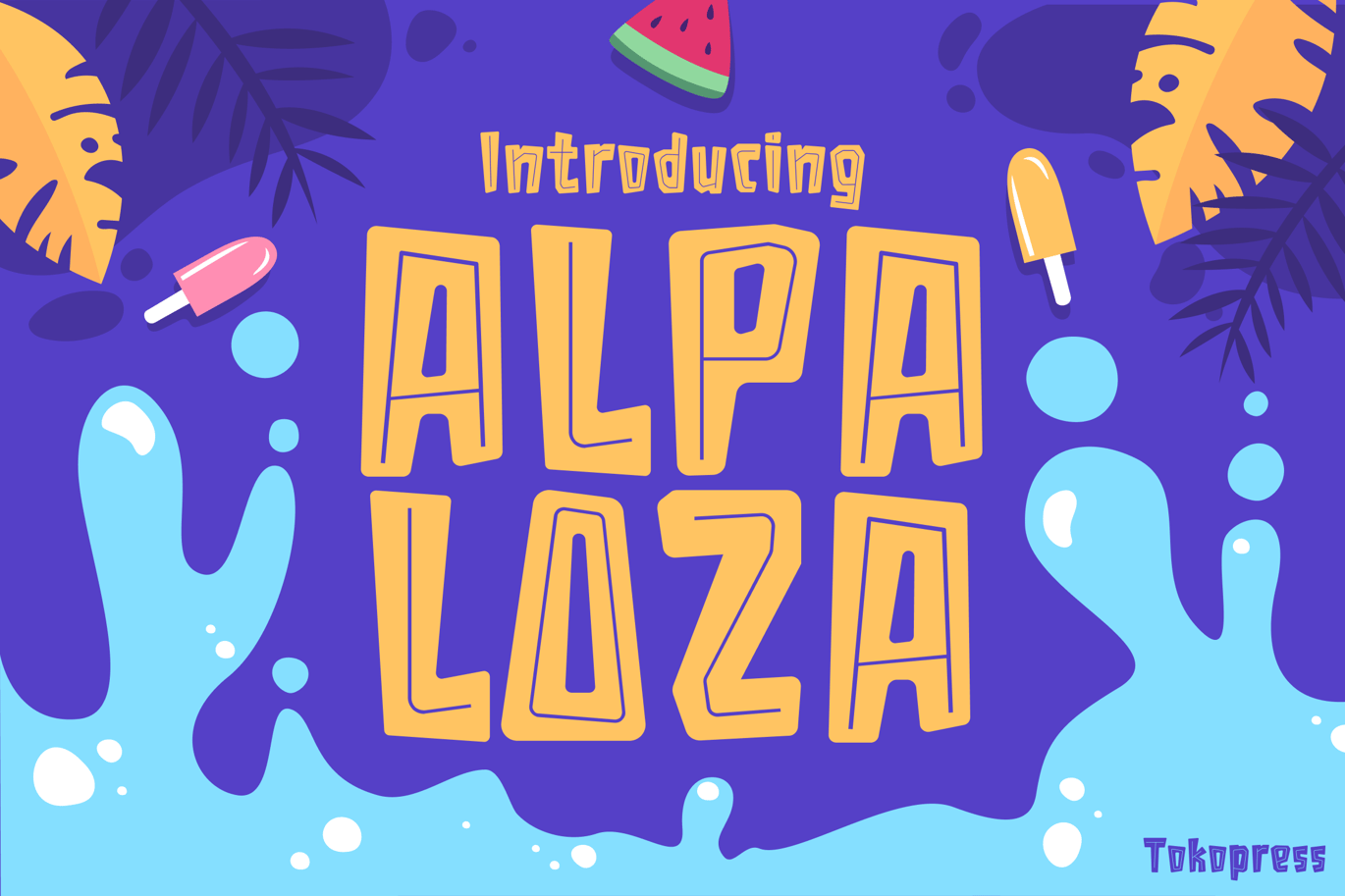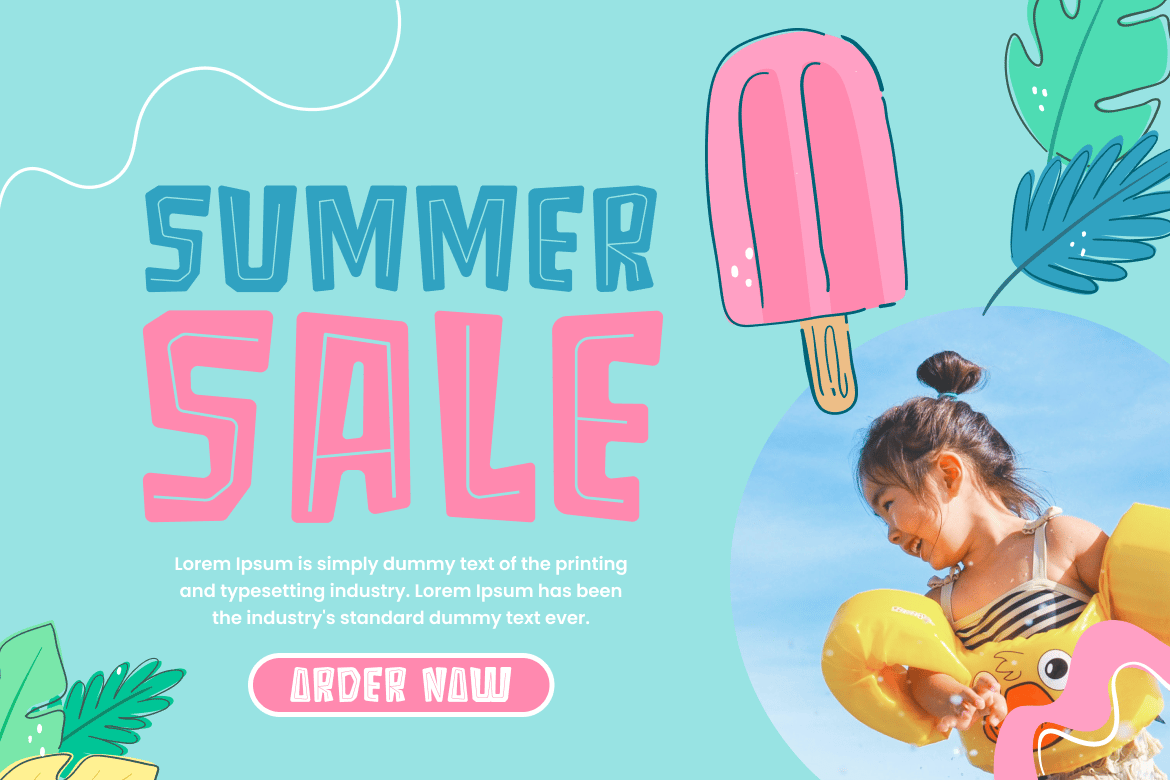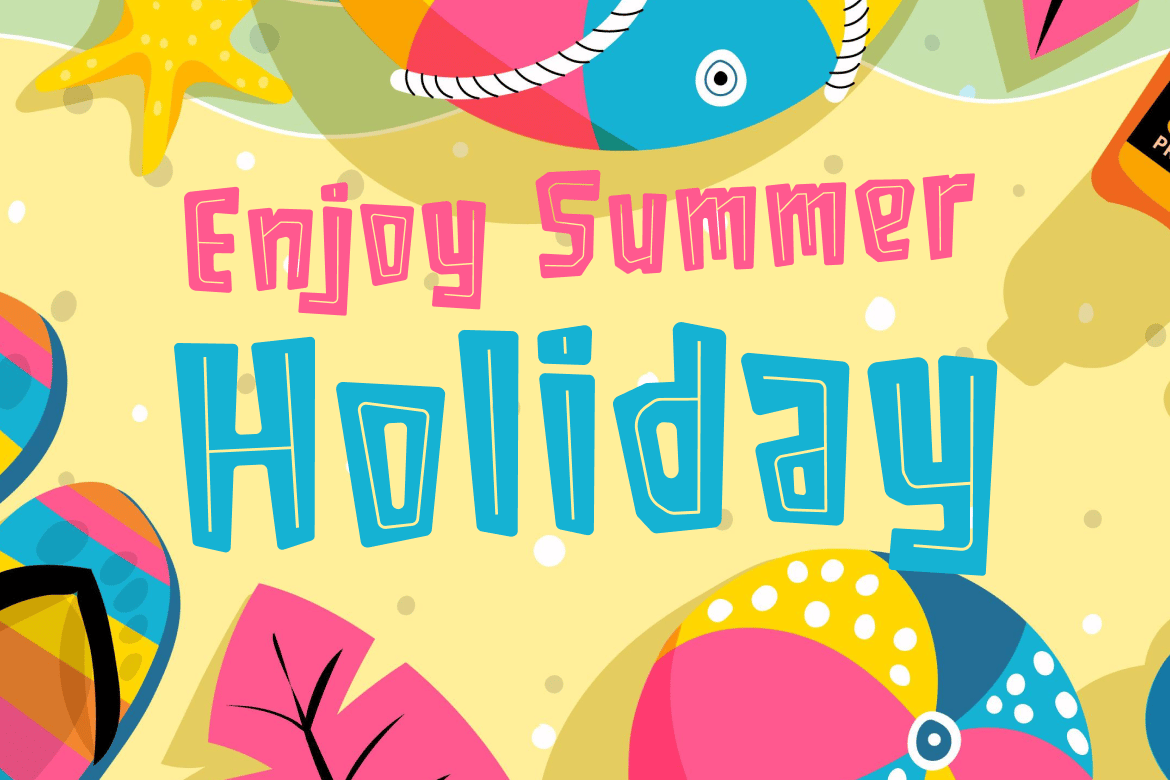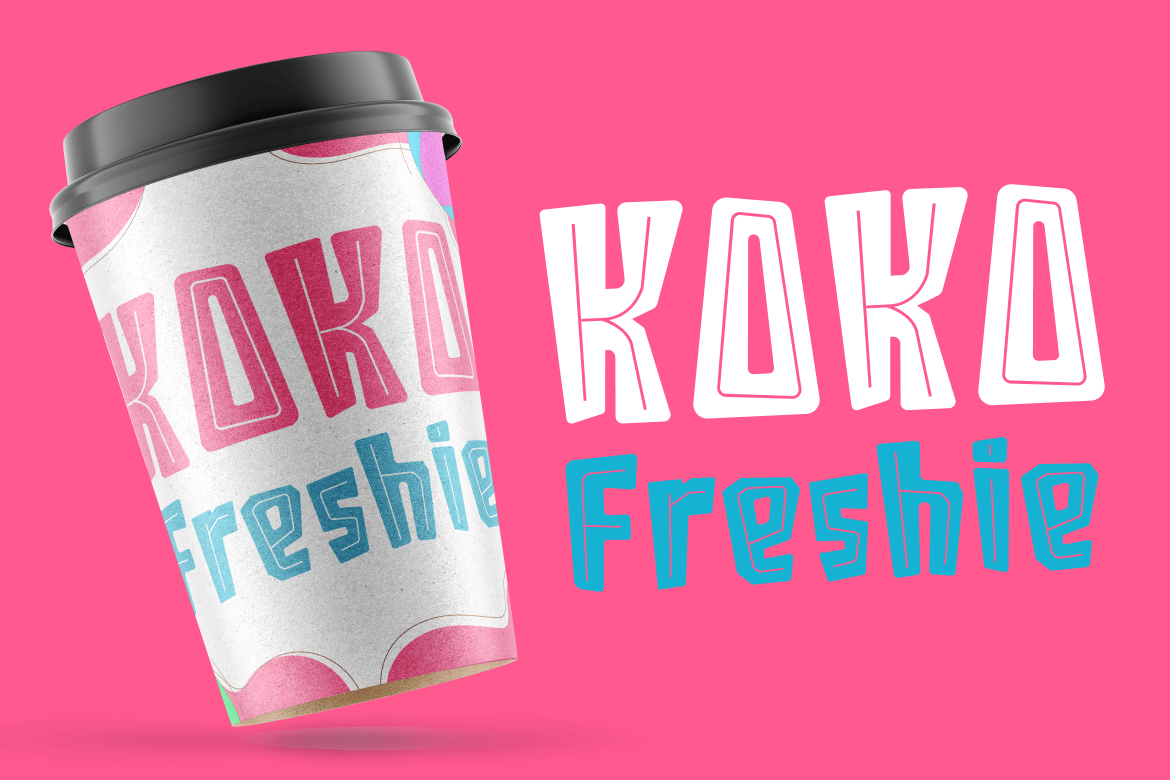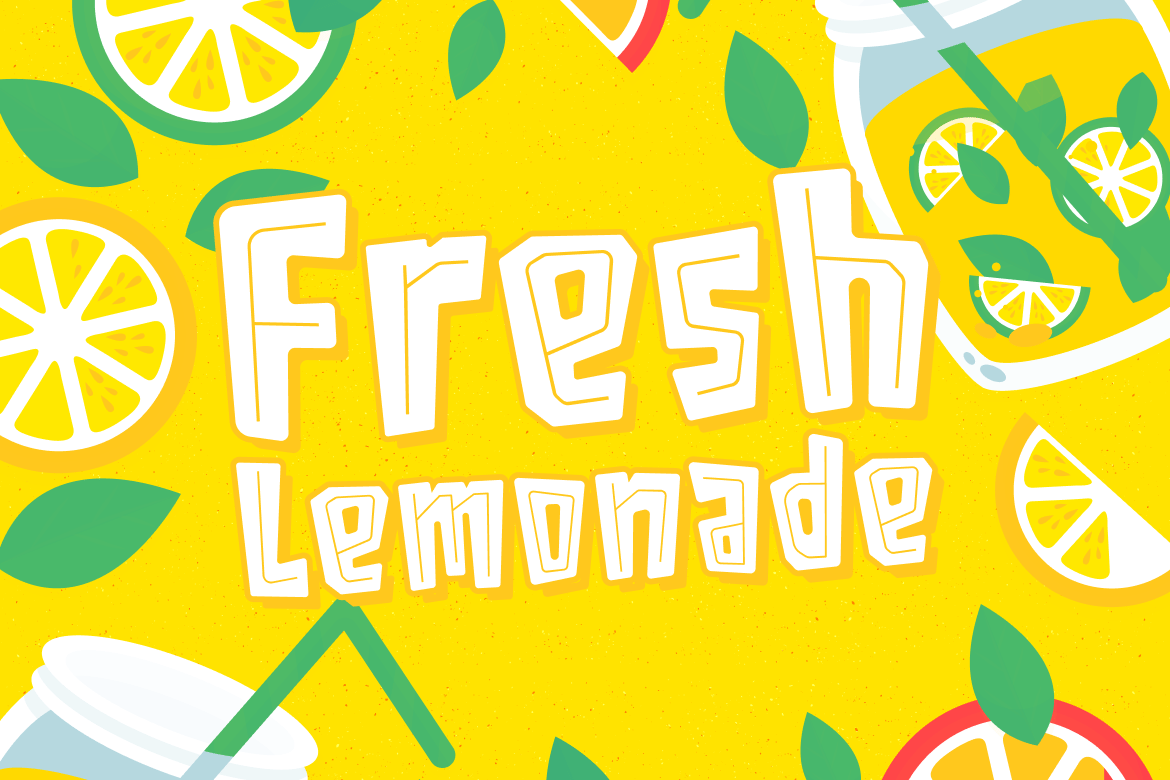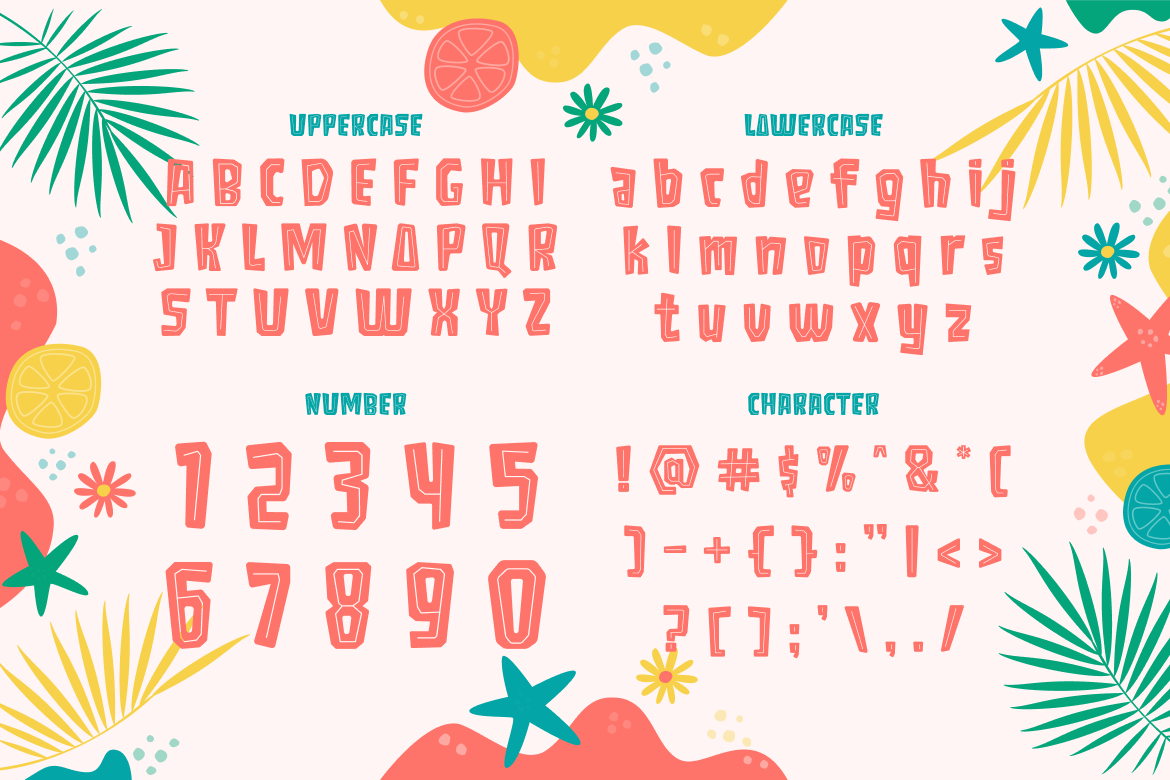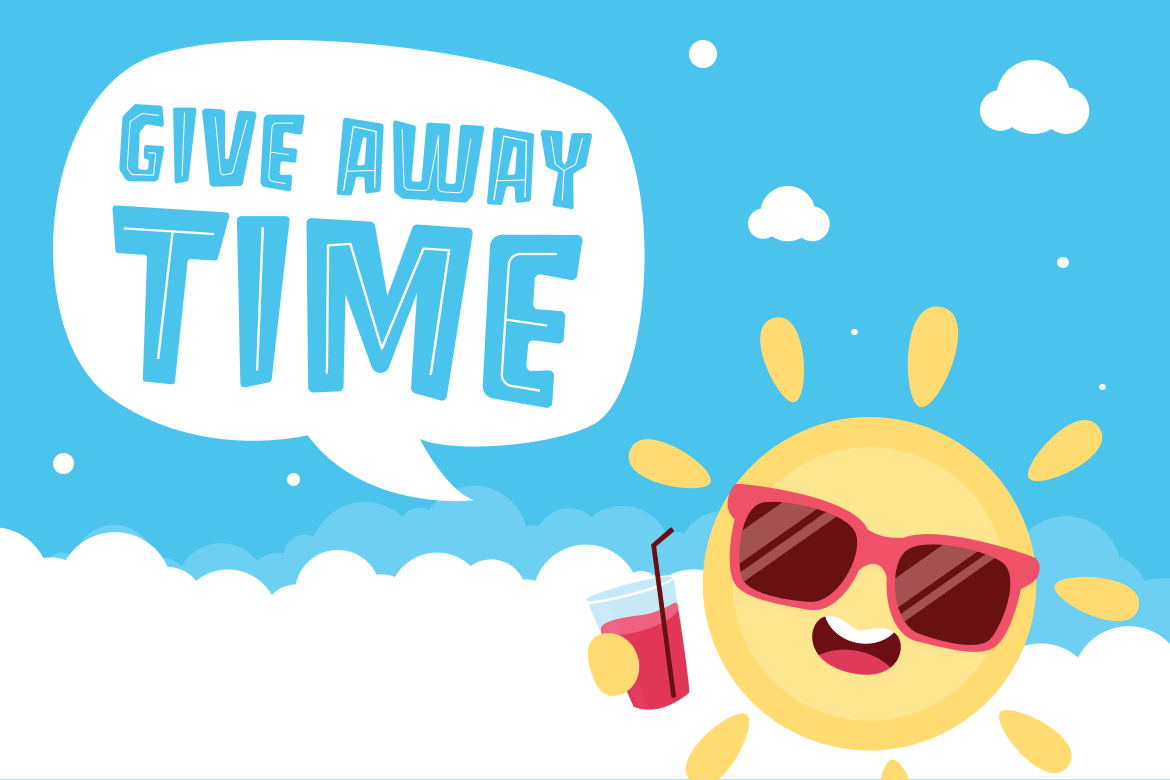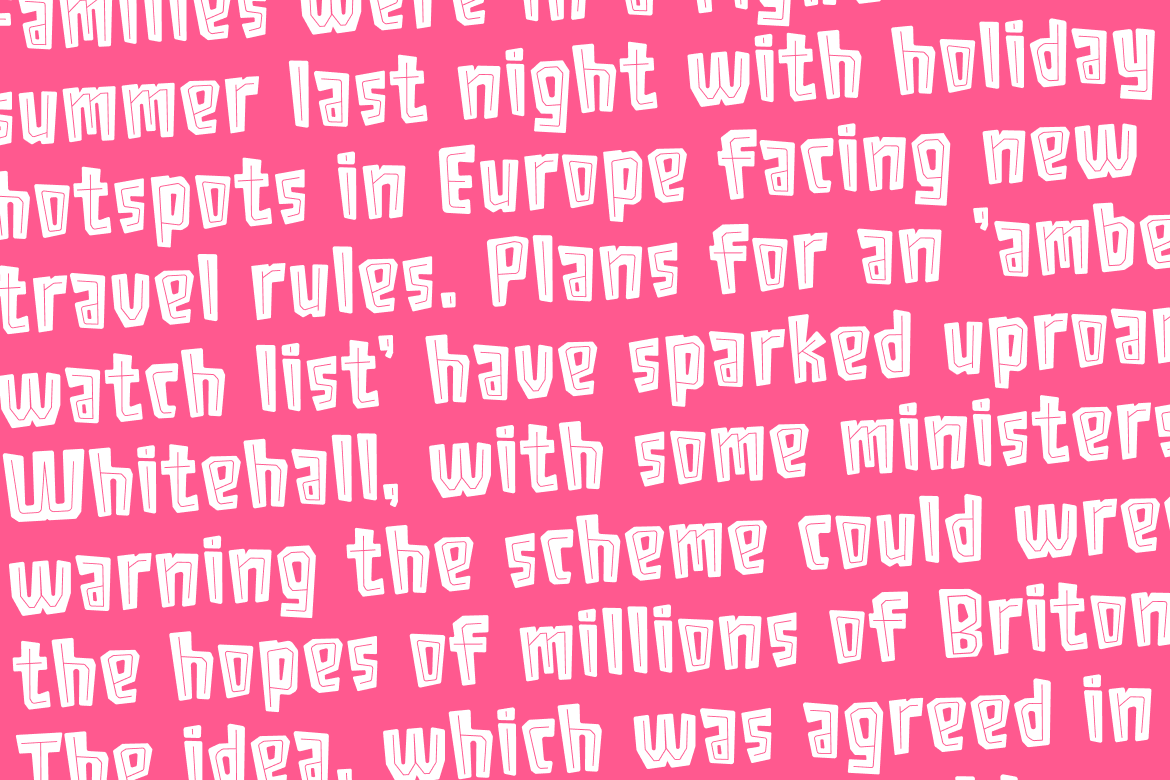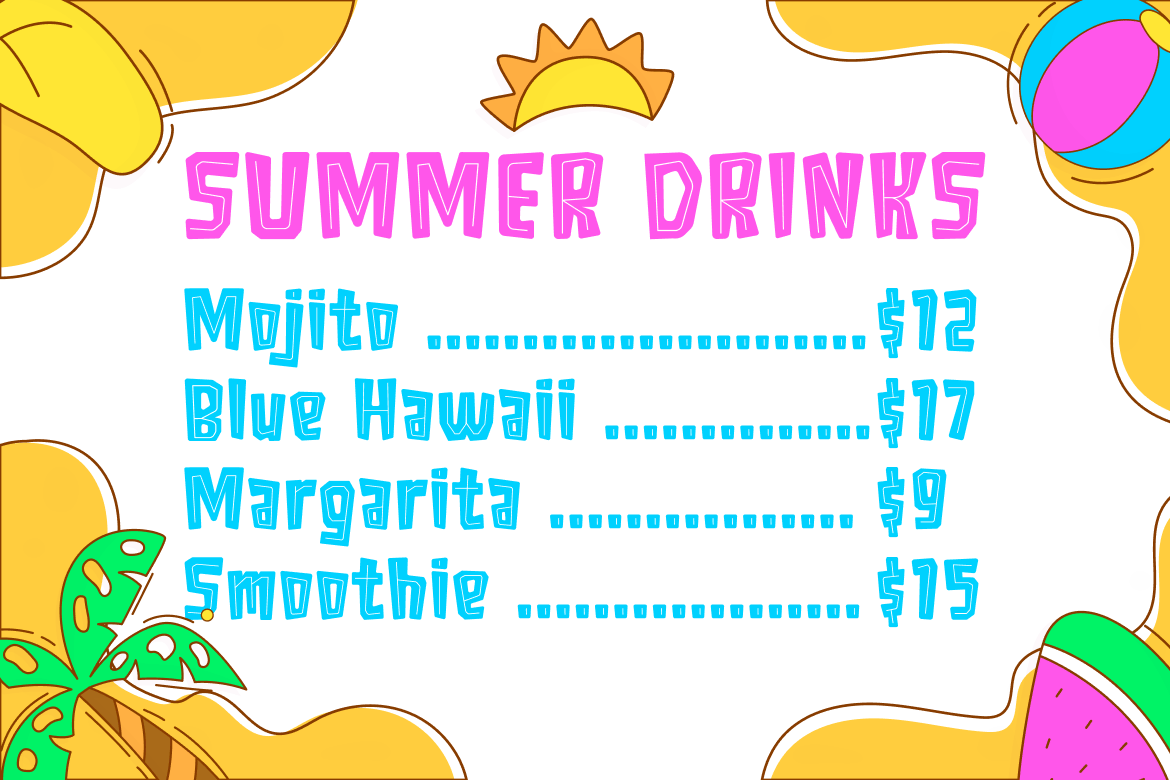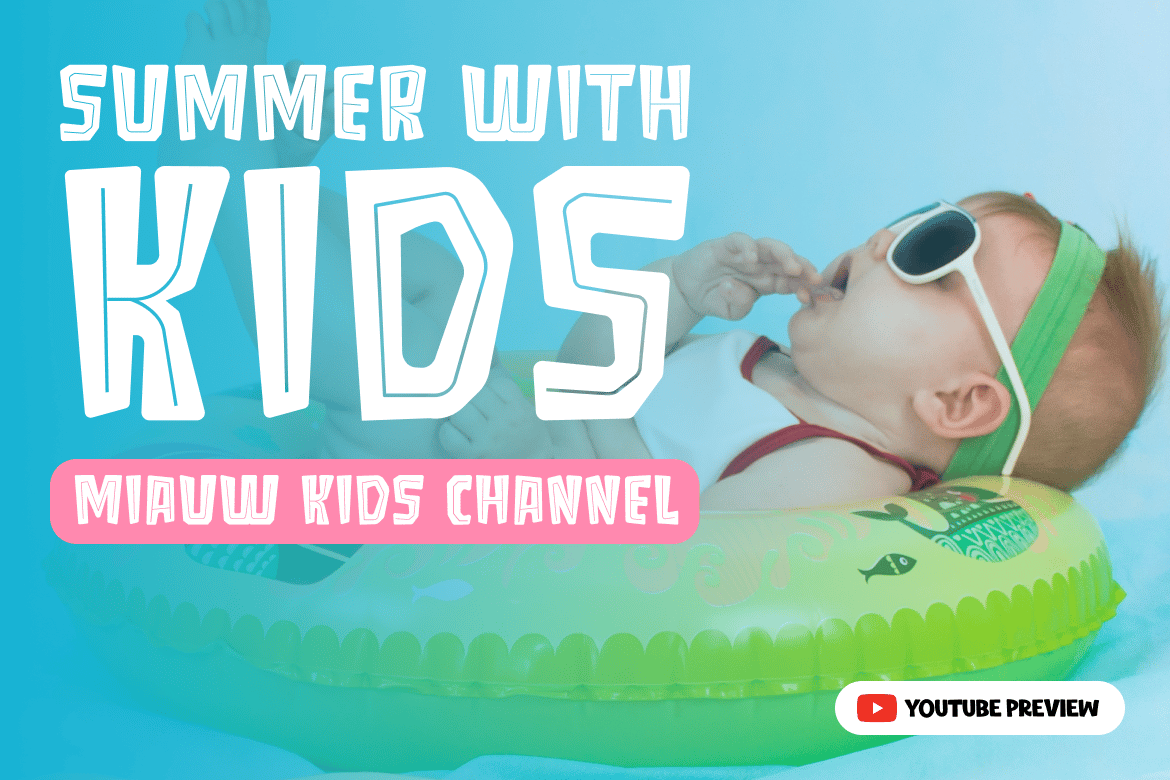
ALPALOZA – Kids Summer Font
Alpaloza – Kids font
Bright and joyful, is what summer bring to us. Just like ALPALOZA, it’s all about fun and smile.
Suit perfectly for summer and beach market , poster, movie title, fun restaurant/ cafe menu, magazine, youtube covers, youtube thumbnails, social media page covers and so on…